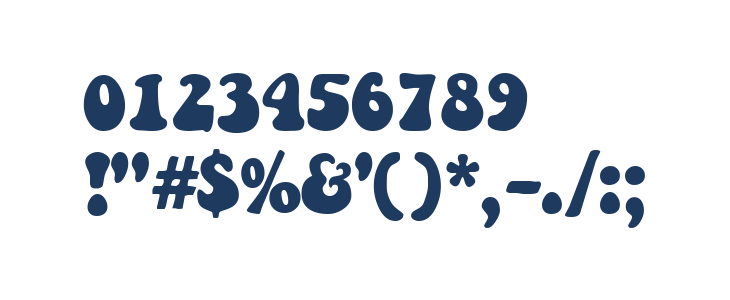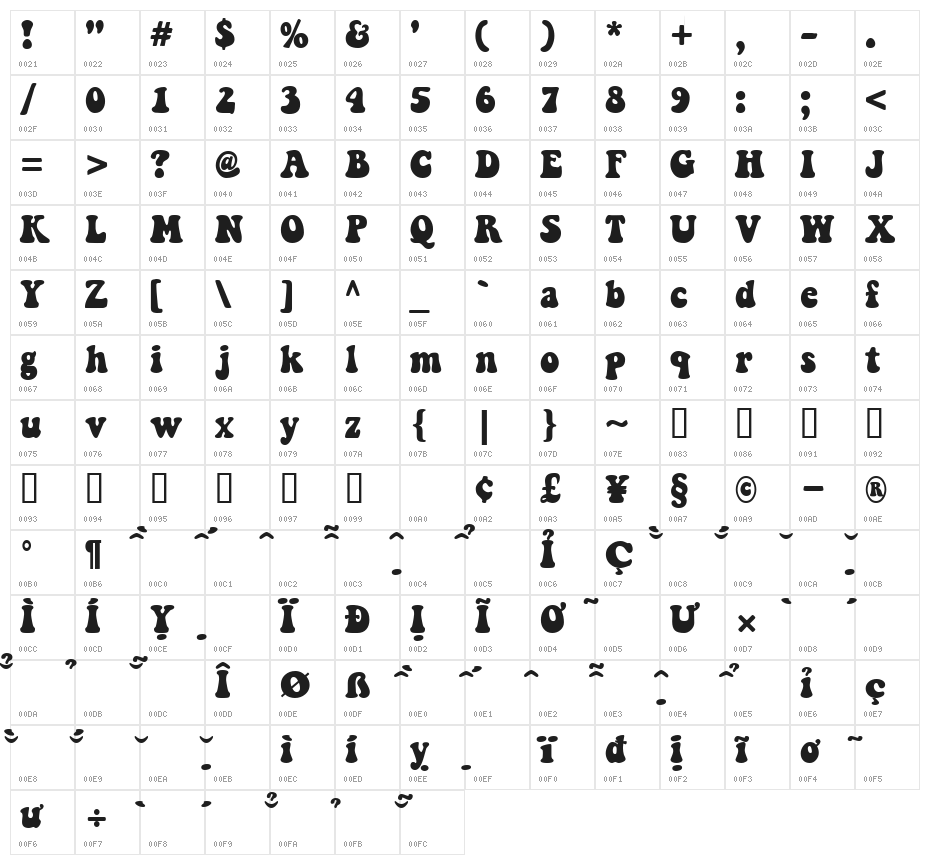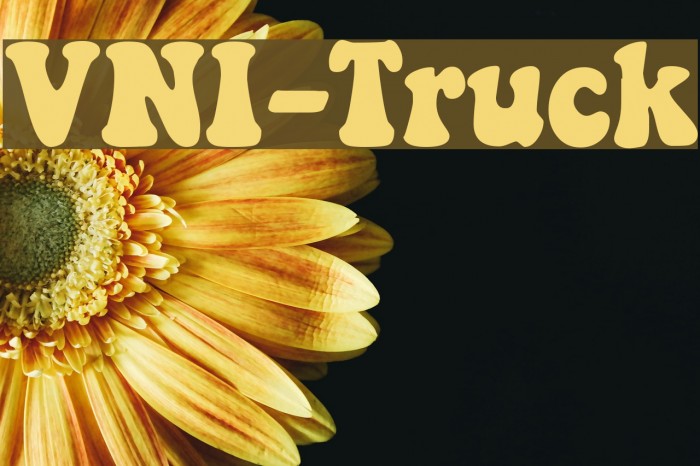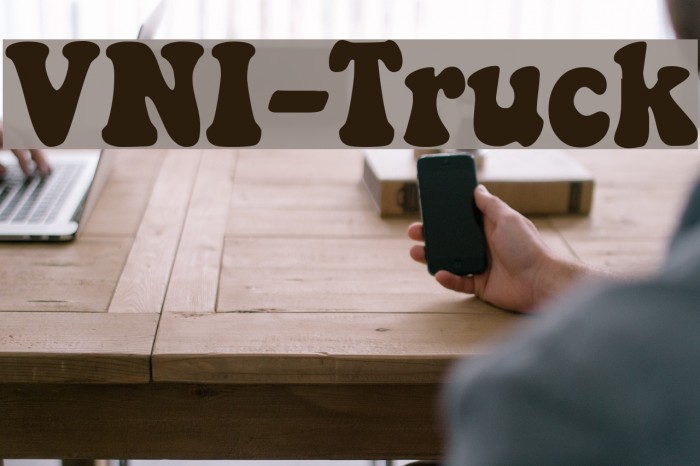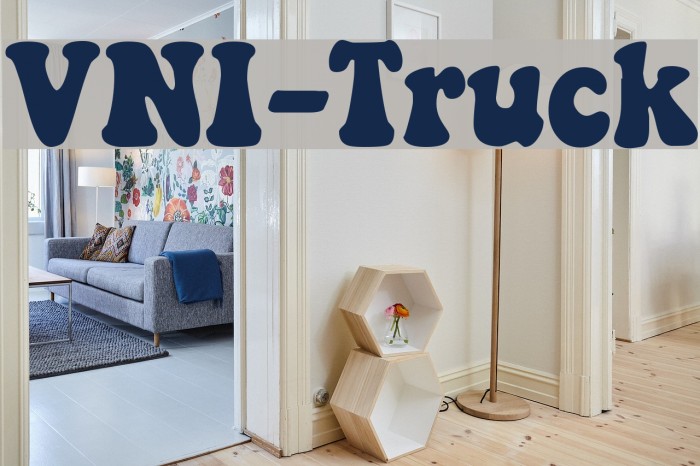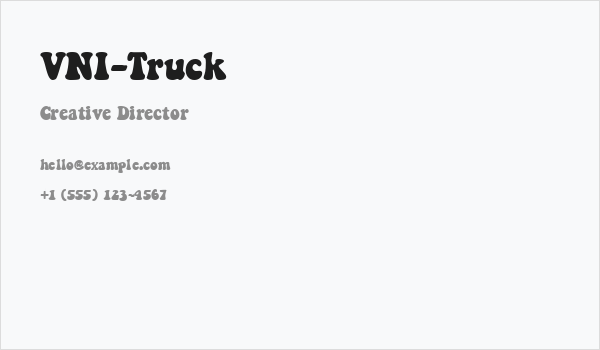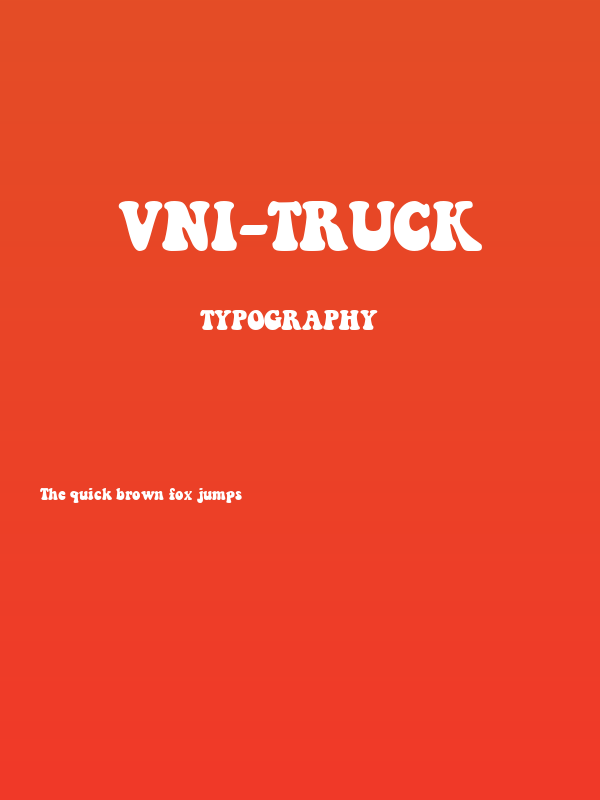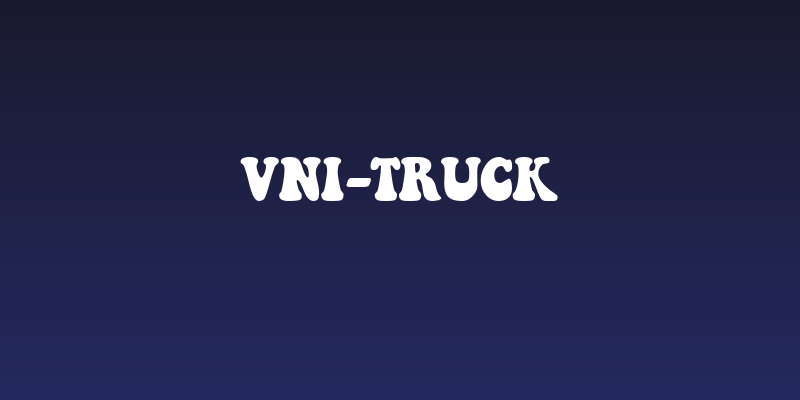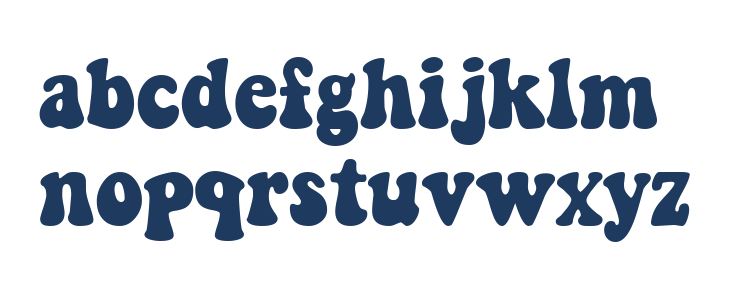
VNI-Truck Font
VNI-Truck Description
This font features bold, rounded characters with a playful and whimsical style. The letters have a slightly inflated appearance, giving them a cartoonish and friendly vibe. The strokes are thick and consistent, creating a strong visual impact. The overall design is reminiscent of retro or vintage styles, making it suitable for projects that require a fun and engaging look. The numbers and special characters maintain the same bubbly aesthetic, ensuring a cohesive appearance across all text elements.
| Proposed Projects | Ideal for children's books, playful branding, posters, and retro-themed designs. |